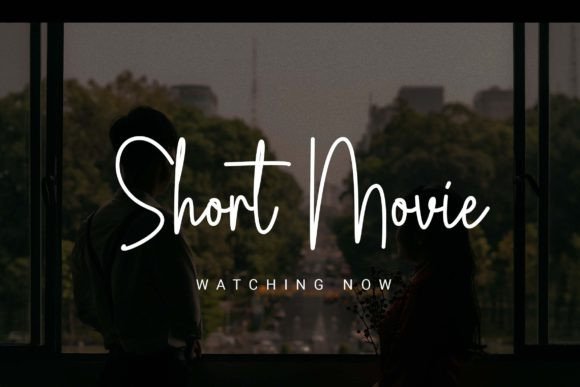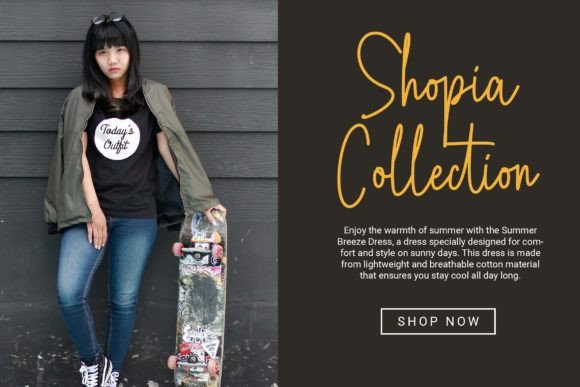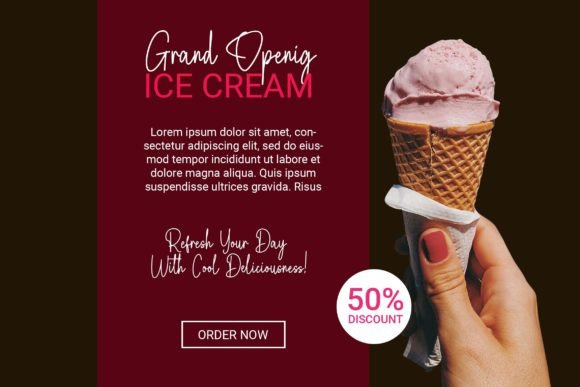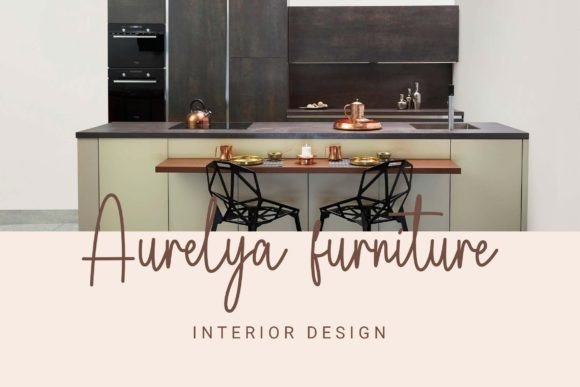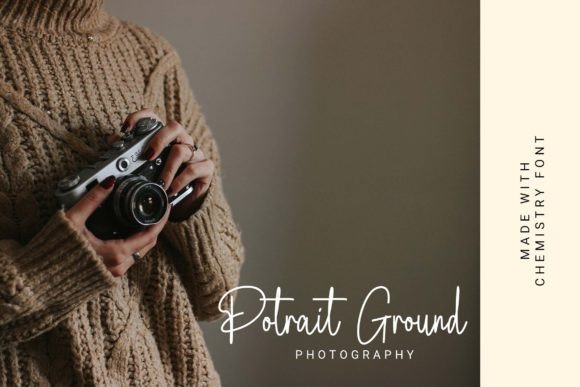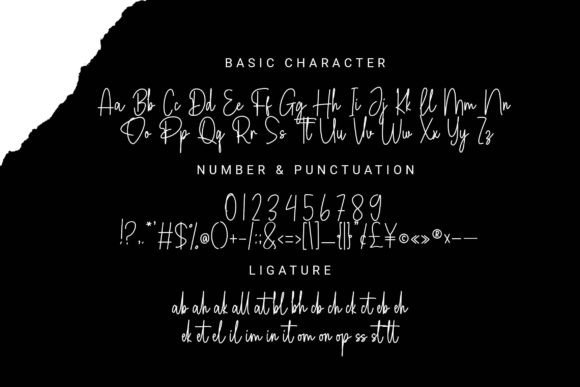
Chemistry Font: Elevate Your Designs with Elegance and Sophistication
Are you tired of using the same old fonts in your designs? Look no further than Chemistry Font, a stylish monoline font that is sure to elevate your projects with its elegant and cool aesthetic. In this article, we’ll dive into the world of Chemistry Font and explore its features, uses, and benefits for designers and crafters.
What is Chemistry Font?
Chemistry Font is a modern, monoline font that exudes sophistication and elegance. Its sleek lines and refined curves make it perfect for a wide range of design applications, from branding and logos to social media posts and product packaging. Whether you’re a professional designer or a crafty DIY enthusiast, Chemistry Font is sure to impress.
Key Features of Chemistry Font
- Elegant and Cool Aesthetic: Chemistry Font boasts a stylish, monoline design that adds a touch of sophistication to any project.
- Versatile: This font is perfect for a wide range of design applications, including branding, logos, social media posts, product packaging, and more.
- Handwriting Taste: Chemistry Font has a unique, handwriting-inspired feel that sets it apart from more traditional fonts.
Uses for Chemistry Font
So, what can you use Chemistry Font for? The possibilities are endless! Here are just a few ideas to get you started:
- Branding Projects: Use Chemistry Font to create a cohesive brand identity that exudes elegance and sophistication.
- Logos and Designs: Chemistry Font is perfect for creating eye-catching logos and designs that make a lasting impression.
- Social Media Posts: Add a touch of style to your social media posts with Chemistry Font.
- Advertisements: Use Chemistry Font to create eye-catching advertisements that stand out from the crowd.
- Product Packaging: Elevate your product packaging with Chemistry Font’s elegant and sophisticated design.
- Labels and Photography: Use Chemistry Font to add a touch of style to your labels and photography projects.
- Invitations and Stationery: Chemistry Font is perfect for creating beautiful invitations and stationery that make a lasting impression.
Benefits of Using Chemistry Font
So, why should you choose Chemistry Font for your next design project? Here are just a few benefits:
- Unique and Eye-Catching: Chemistry Font’s elegant and cool aesthetic is sure to turn heads.
- Versatile: This font can be used for a wide range of design applications, making it a great addition to any designer’s toolkit.
- Easy to Read: Chemistry Font is clear and easy to read, making it perfect for body text and headlines.
- High-Quality: Chemistry Font is a high-quality font that is designed to deliver exceptional results.
Tips for Using Chemistry Font
Here are a few tips for getting the most out of Chemistry Font:
- Experiment with Different Sizes: Chemistry Font looks great in a variety of sizes, from small body text to large headlines.
- Pair with Other Fonts: Try pairing Chemistry Font with other fonts to create a unique and eye-catching design.
- Use in Combination with Images: Chemistry Font looks great in combination with images and graphics.
| Font Name | Chemistry Font |
| Author | Lintype Studio |
In conclusion, Chemistry Font is a stylish and elegant monoline font that is perfect for designers and crafters looking to elevate their projects. With its versatile design, easy readability, and high-quality construction, Chemistry Font is sure to become a go-to font in your design toolkit. So why wait? Download Chemistry Font today and start creating stunning designs that make a lasting impression!